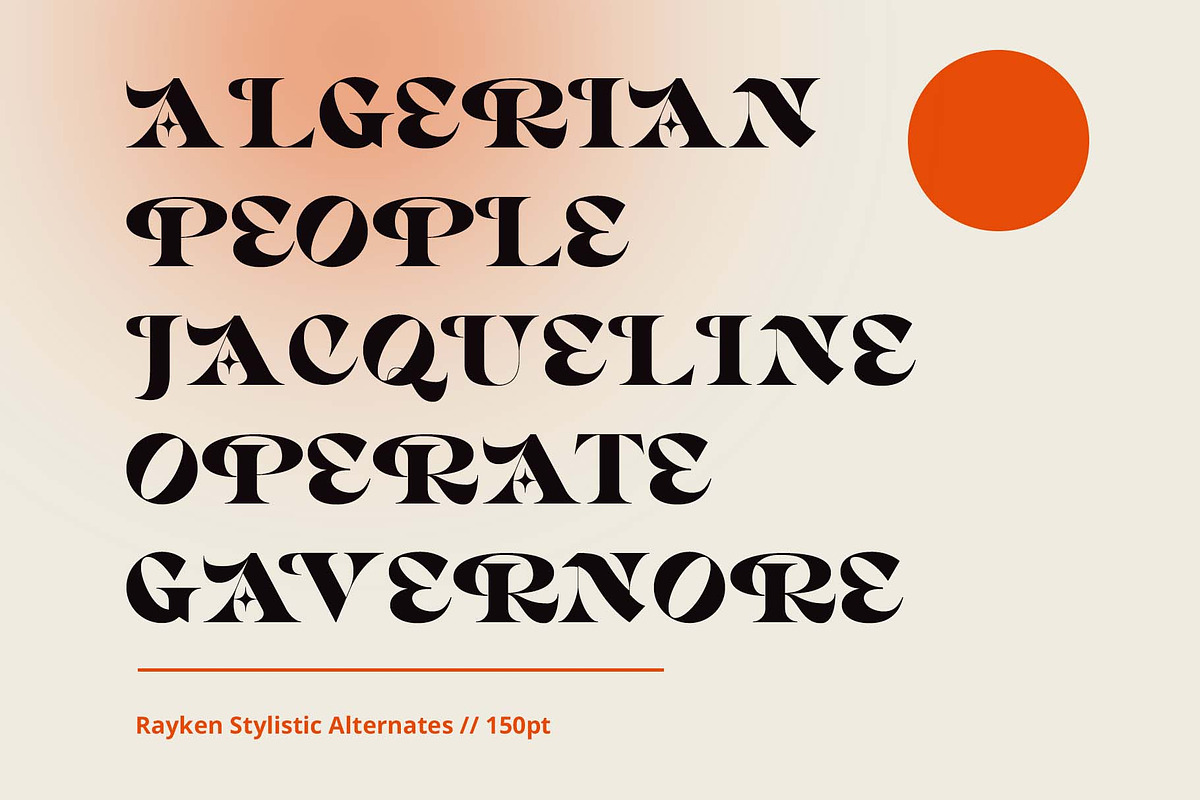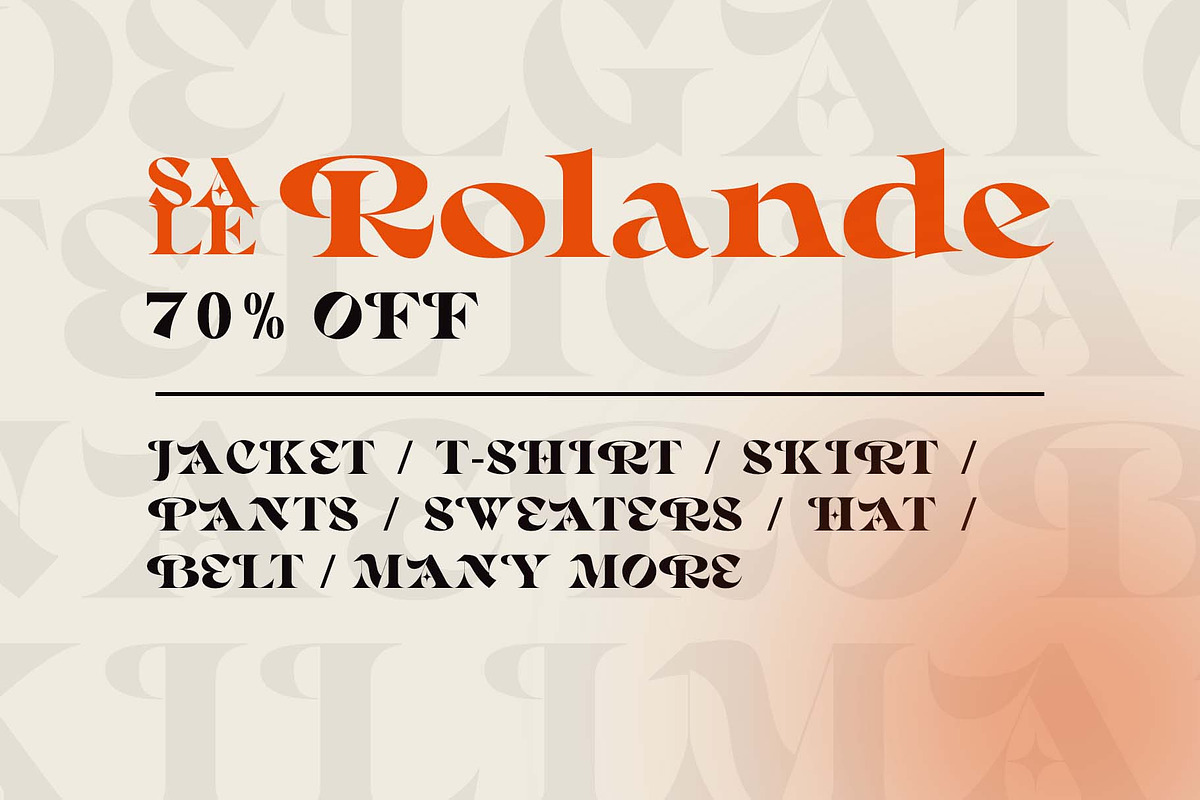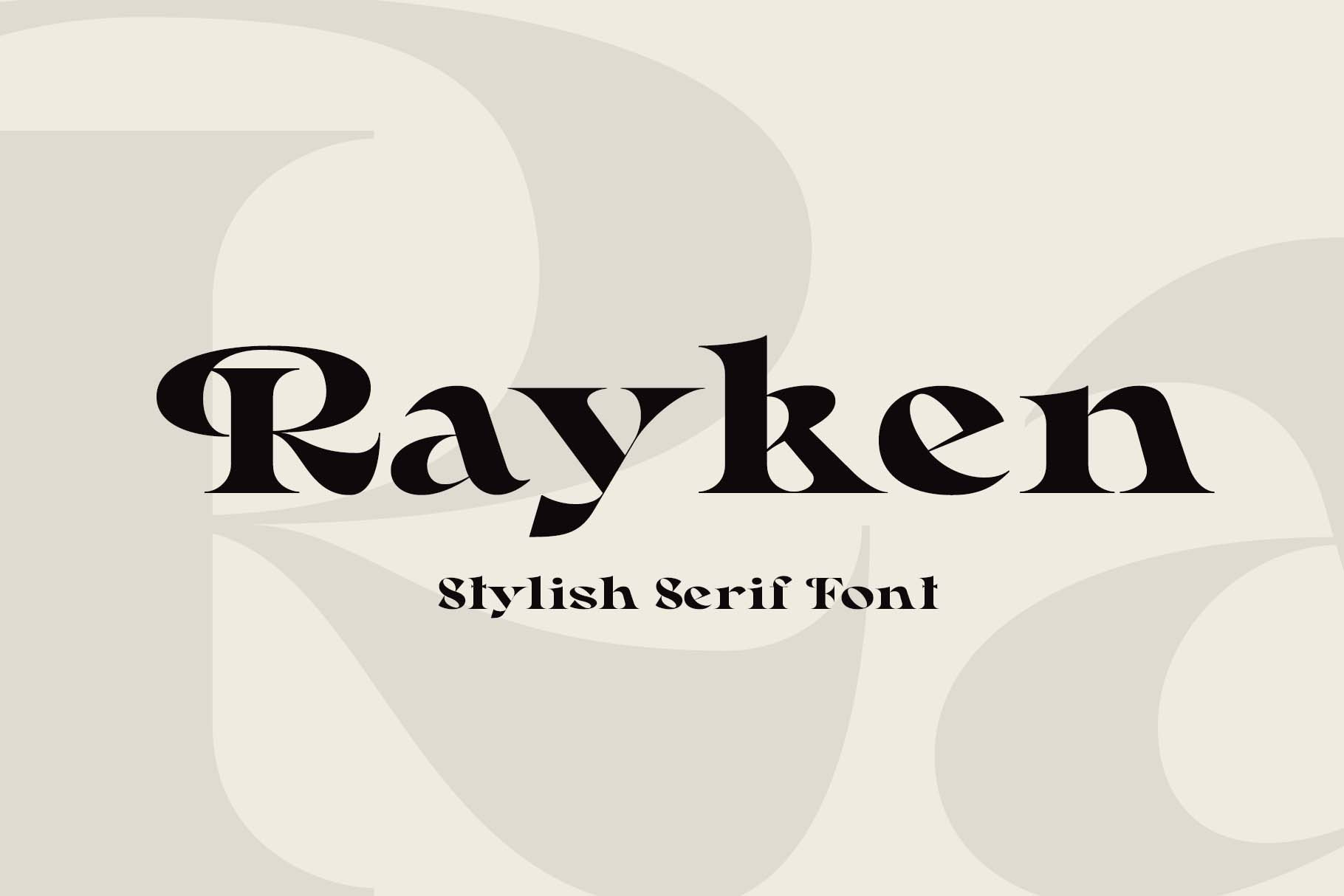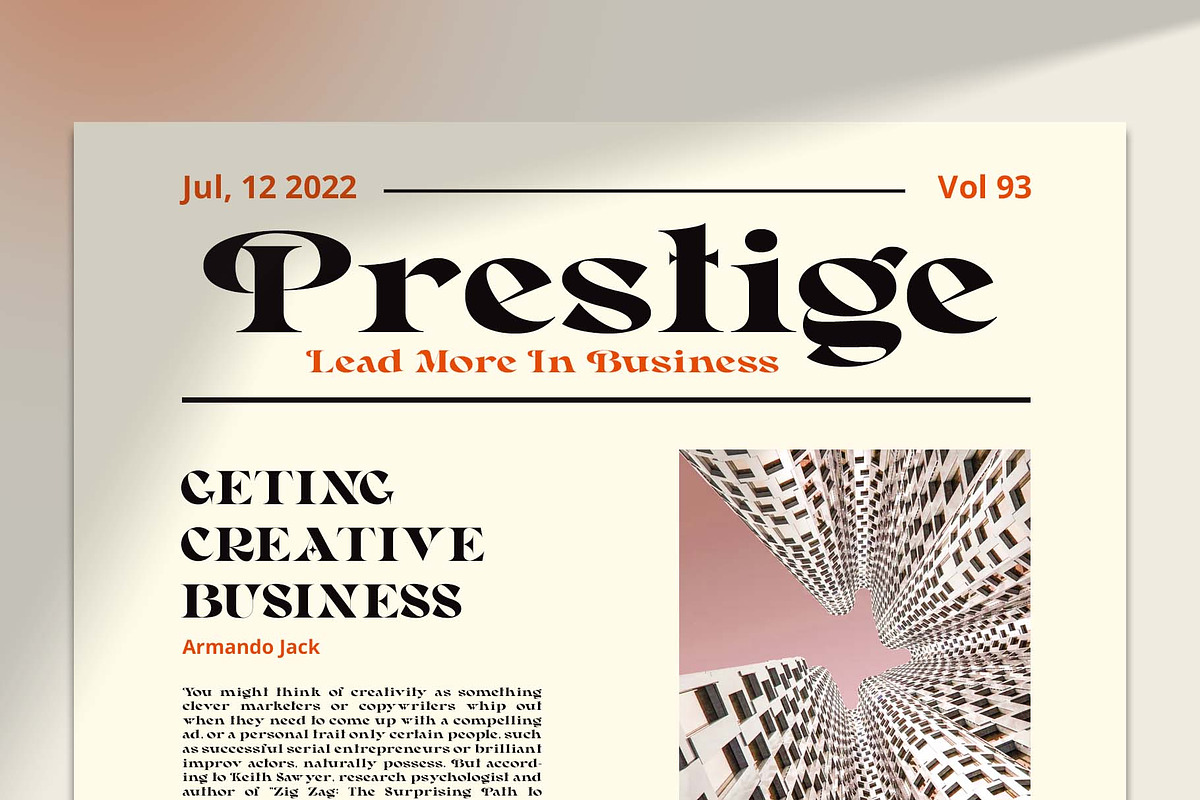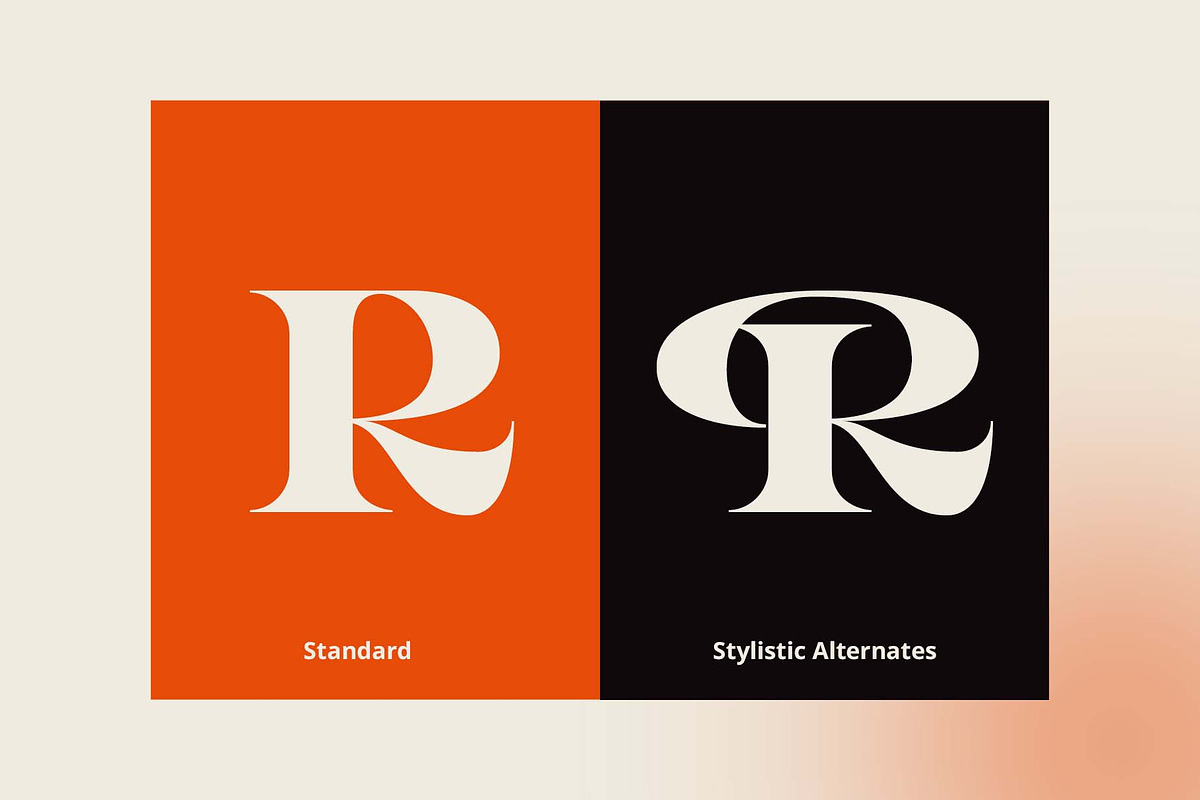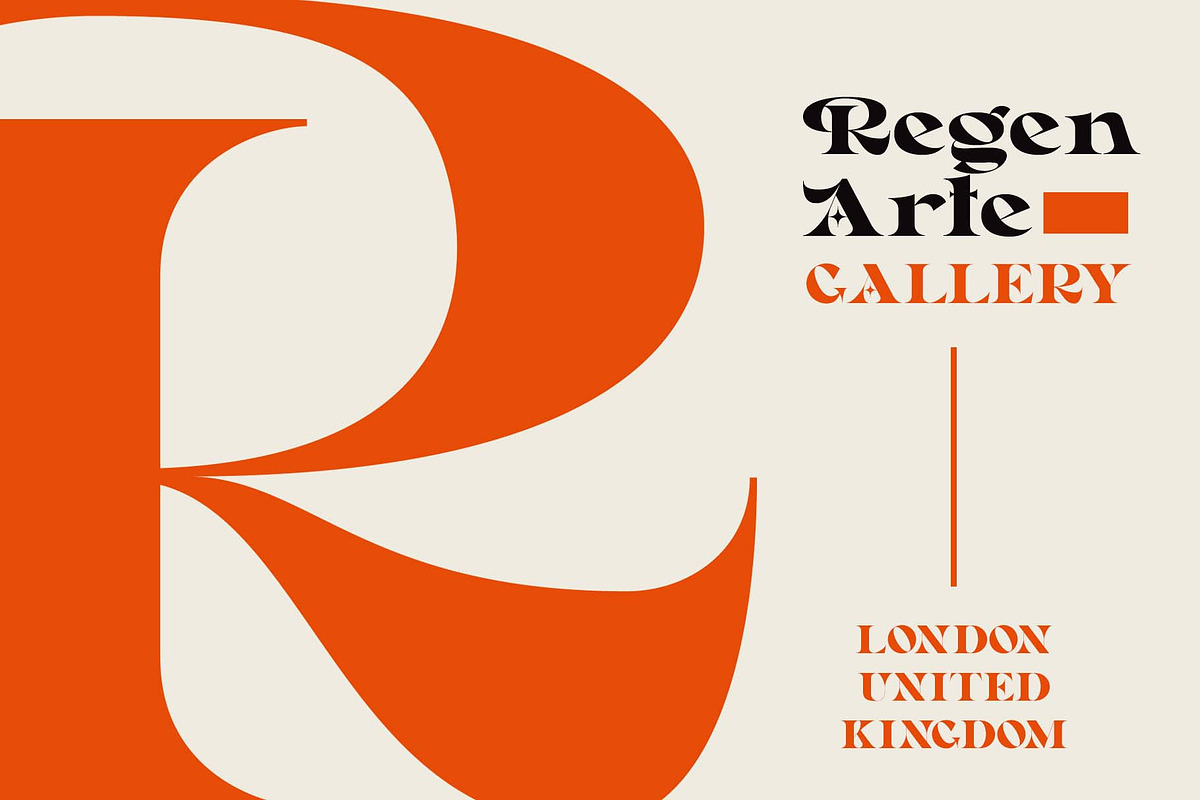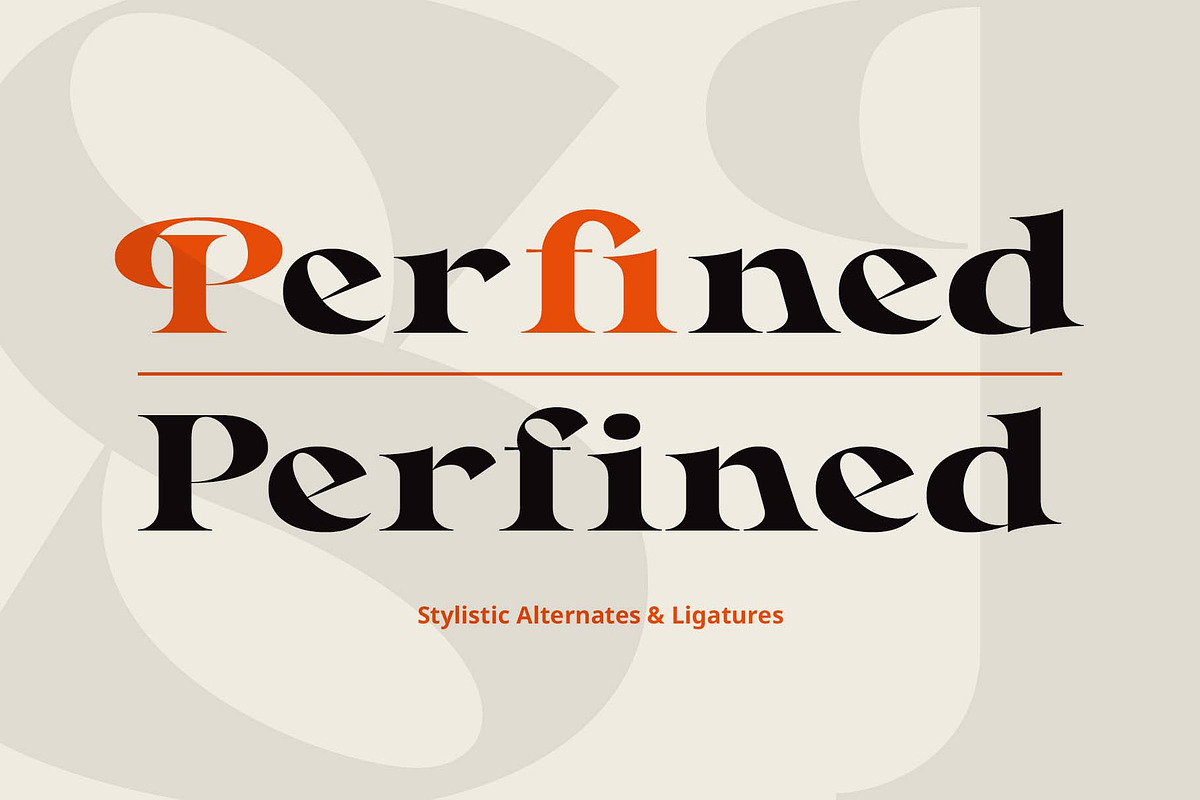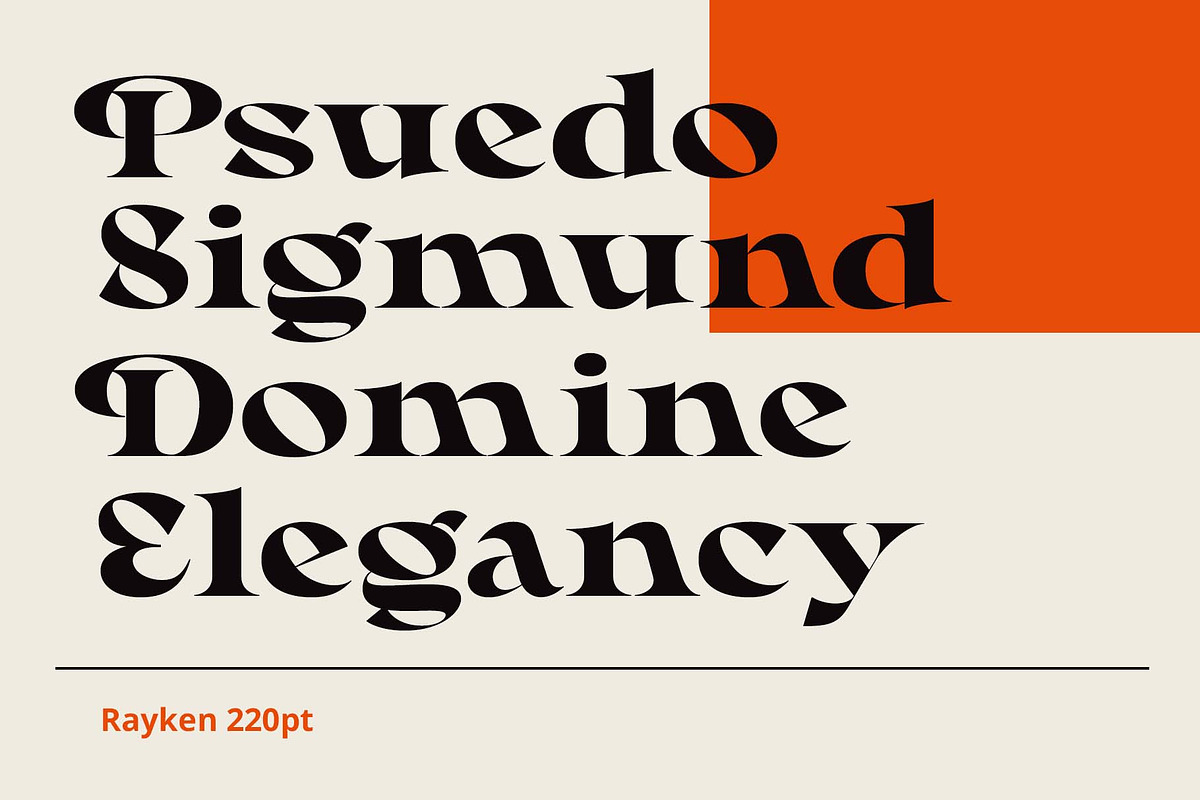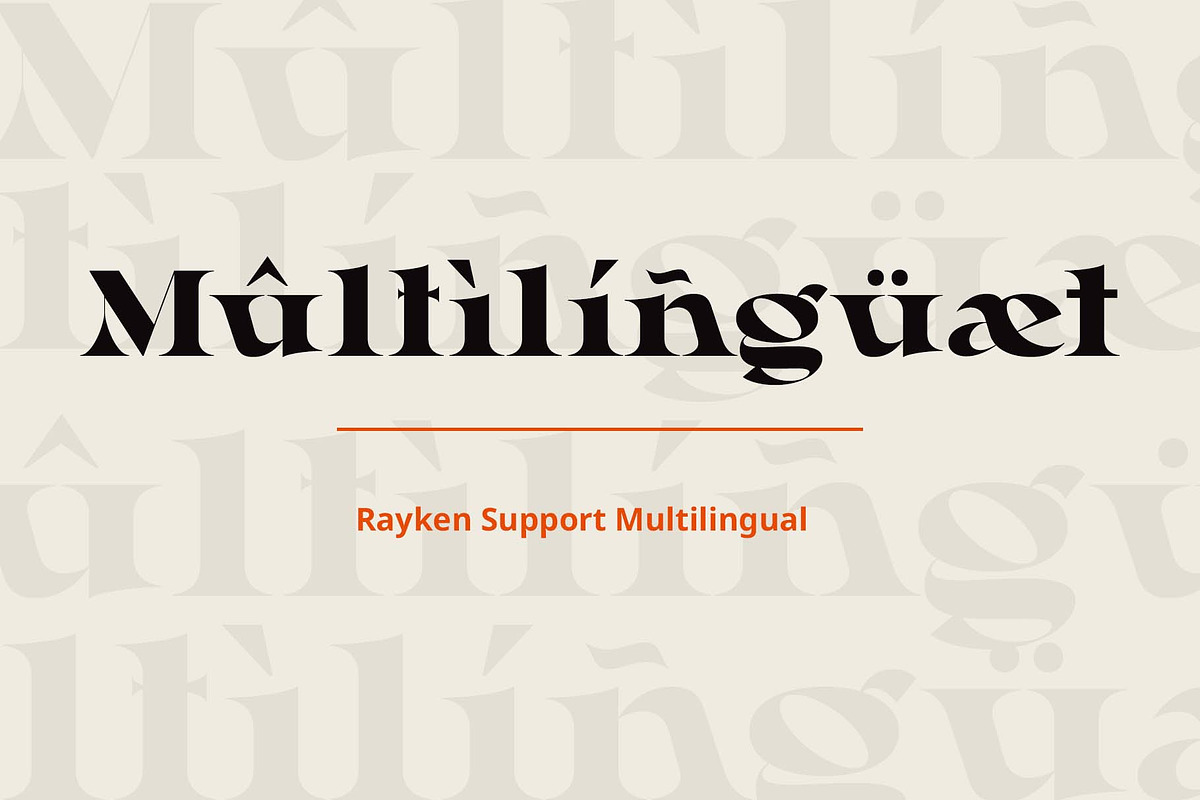
Rayken - Stylish Serif Font
Introducing Rayken - Stylish Serif Font
Rayken is a stylish serif font with Stylistic Alternates and ligatures. It has been designed for the modern graphic designer who wants to create high-quality typography that can be used in a variety of different contexts.
Rayken includes both regular and stylistic alternates, making it perfect for creating custom typefaces. The ligatures feature allows you to combine letters together more smoothly than ever before, giving your designs a more polished look. Whether you're designing headlines or body text, Runkey will help you achieve the perfect balance between legibility and aesthetics.